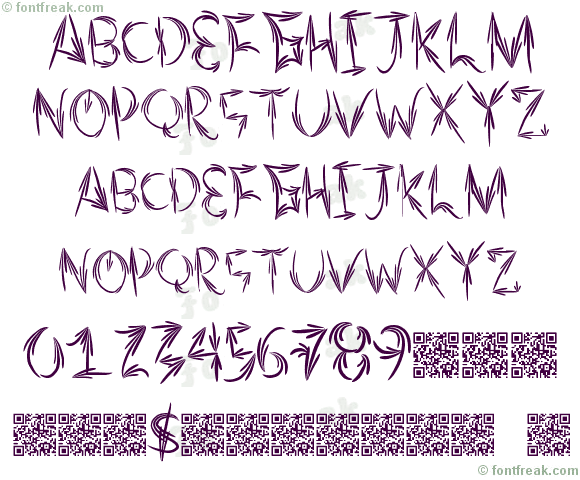
AutumnTwo
About AutumnTwo
AutumnTwo by Xerographer Fonts is a captivating display font that embodies the essence of fall with its unique artistic flair. This font features a whimsical, handcrafted style that evokes a sense of warmth and nostalgia, making it a perfect choice for various creative projects. The visual characteristics of AutumnTwo include a playful stroke weight with varying line thickness, which adds a dynamic quality to the text. The letters are designed with generous spacing, ensuring readability while maintaining a charming, informal aesthetic. Decorative elements such as playful curves and distinctive serifs enhance its character, making each letter visually engaging.
This versatile font excels in multiple use cases. It is an excellent choice for wedding invitations, where its romantic and inviting style can set the tone for the special day. Additionally, AutumnTwo can elevate movie posters, giving a creative and seasonal touch to film titles. Restaurant menus can benefit from its quirky flair, making dishes sound more appealing and enticing. Furthermore, content creators and bloggers will find this font ideal for autumn-themed graphics and social media posts, allowing them to capture the season's spirit effortlessly.
What sets the AutumnTwo font apart is its ability to combine artistry with functionality. It stands out in a crowded market of fonts, offering a distinct style that resonates with themes of nature, warmth, and creativity. Don’t miss the opportunity to enhance your designs with this delightful typeface; simply seek out the AutumnTwo font free download to get started.